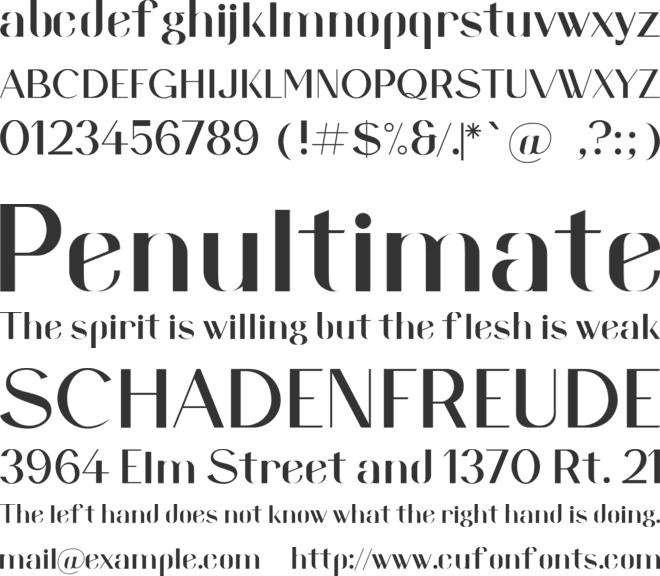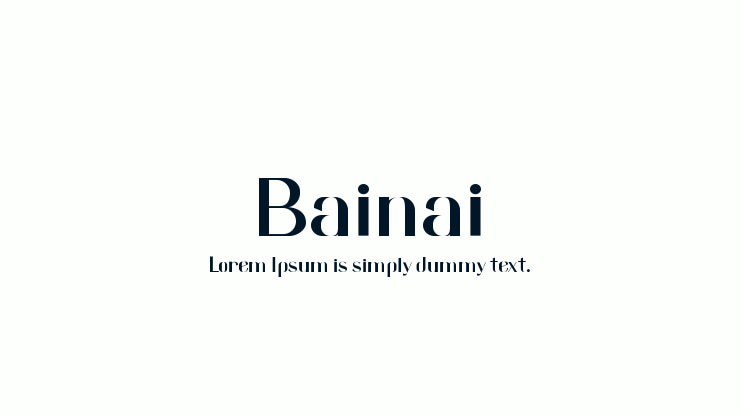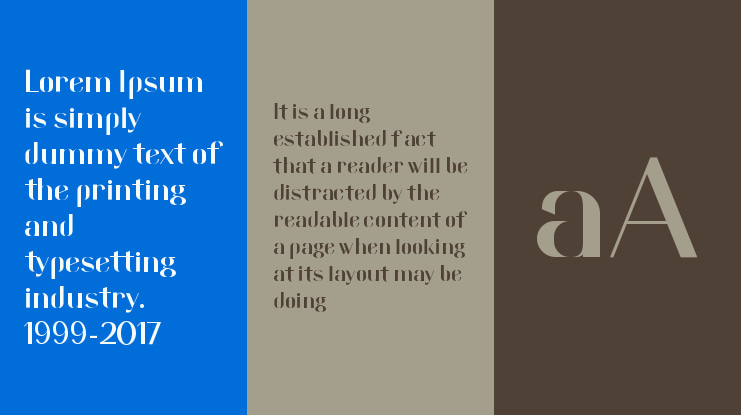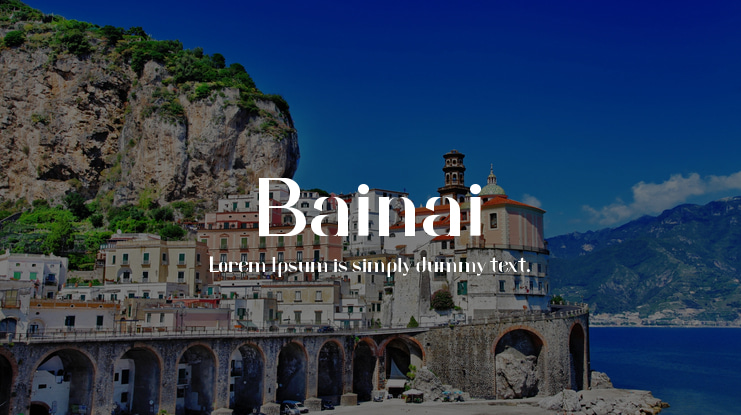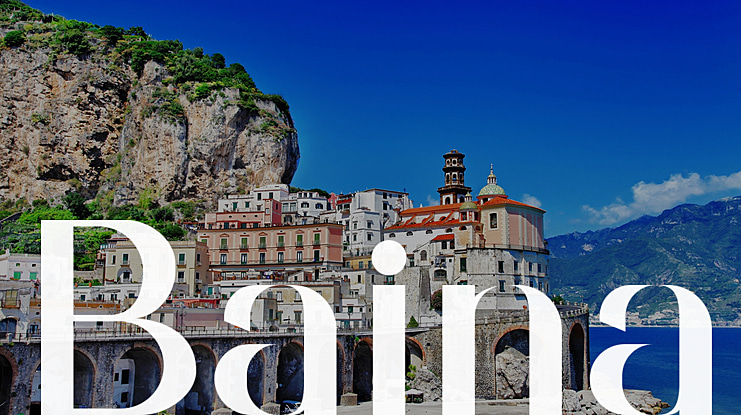
Bainai Font
Hi Introducing, this is our latest product, we named this product Bainai Font. Bainai Font is a modern sans serif with sweet touches and beautiful curves in each letter. Bainai fonts are great for wedding invitations, fashion magazines, logos, signatures, and also suitable for watermark photography.